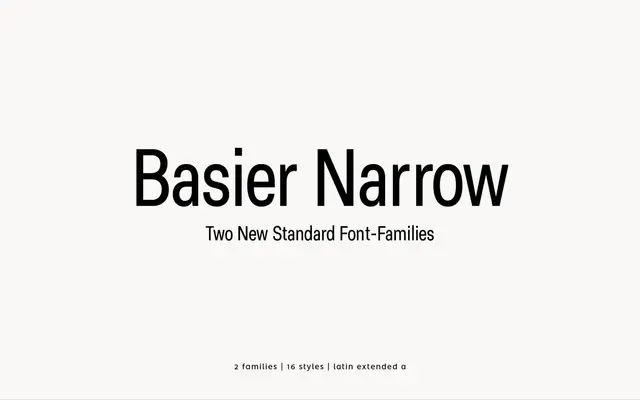
Basier Narrow
A narrow cut of Basier in Circle and Square variants, for tight measures, mastheads and dense interface layouts.
A narrow neo-grotesque sans by atipo foundry that extends the Basier system into tighter widths. It is drawn in two parallel cuts, Narrow Circle and Narrow Square, each running through Regular, Medium, SemiBold and Bold with matching italics. OpenType features include stylistic alternates and a full set of fractions, superiors and ordinals. Suited to mastheads, navigation, data tables and any layout where horizontal space is at a premium while a Basier-family voice is wanted.
The narrow cut of the Basier system, drawn in Circle and Square variants so it can sit alongside the proportional Basier and Basier Mono. Built for tight measures, mastheads and dense interface layouts.